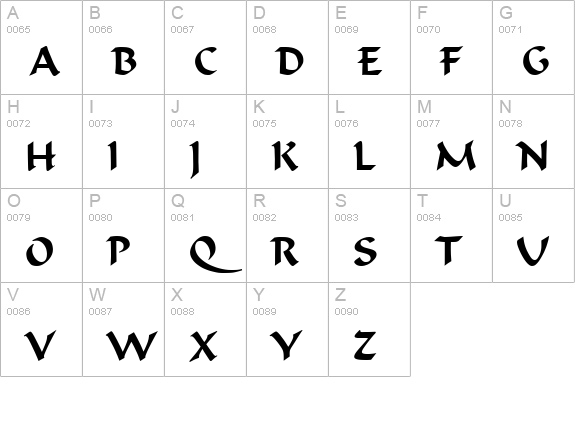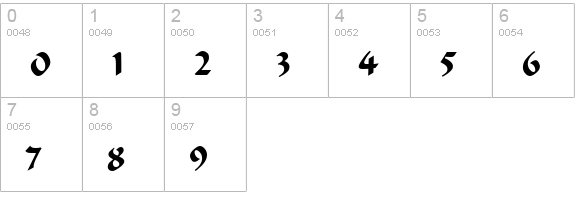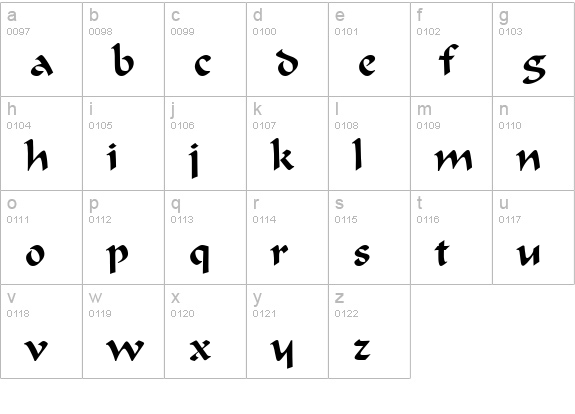
Calligrapher Regular Font Details
Calligrapher Regular is the standard, neutral variant in the Calligrapher typeface family \xE2\x80\x94 well suited to general body text, paragraphs, and standard typographic work.
Introducing Calligrapher Regular font, a timeless and elegant typeface perfect for adding a touch of sophistication to your designs. This beautifully crafted font features graceful, flowing lines reminiscent of traditional calligraphy, making it ideal for invitations, branding, and other creative projects. What sets Calligrapher Regular font apart is not only its classic appeal but also its versatility. Whether you're creating wedding invitations, elegant logos, or artistic signage, this font is sure to elevate your designs with its timeless charm. Best of all, Calligrapher Regular font is available for free download at FontsMarket.com. So go ahead and add this exquisite typeface to your collection today and bring a touch of elegance to your next project.